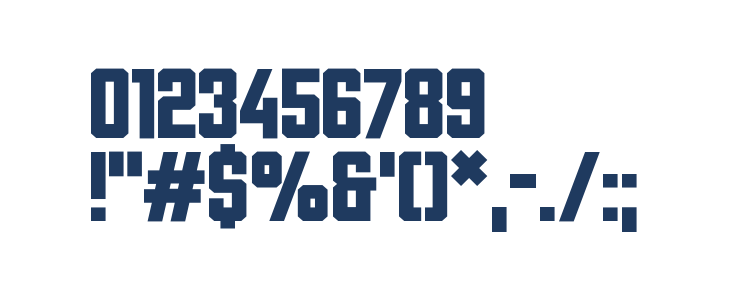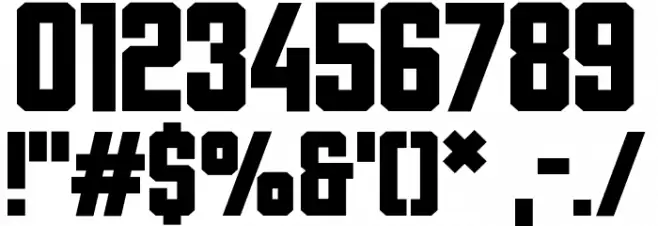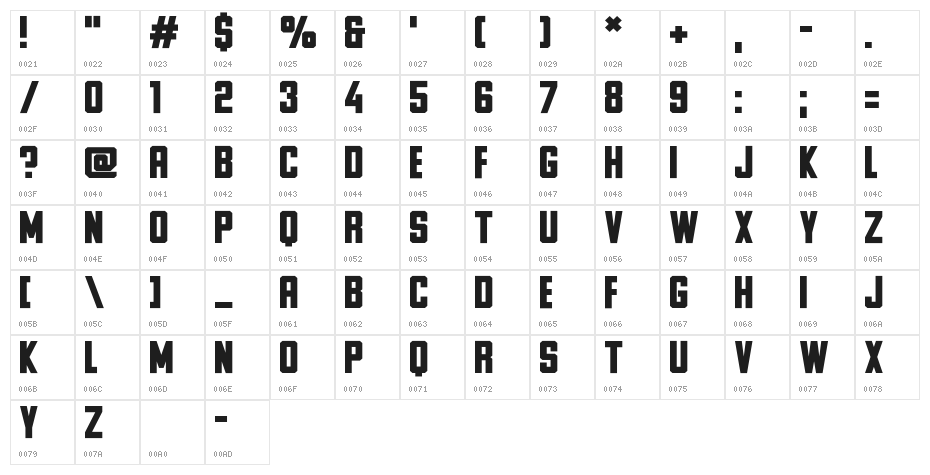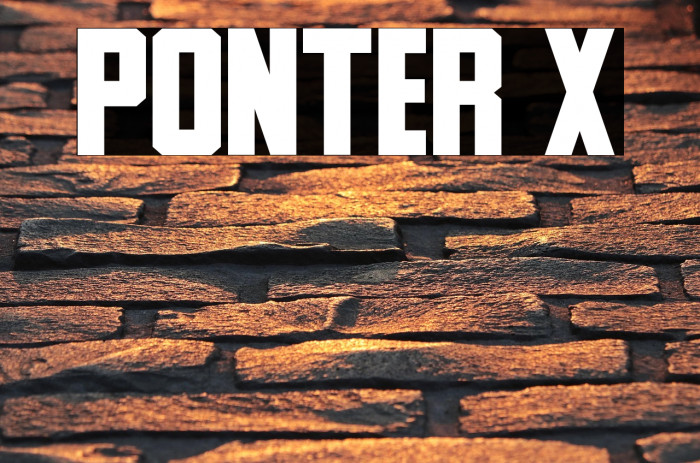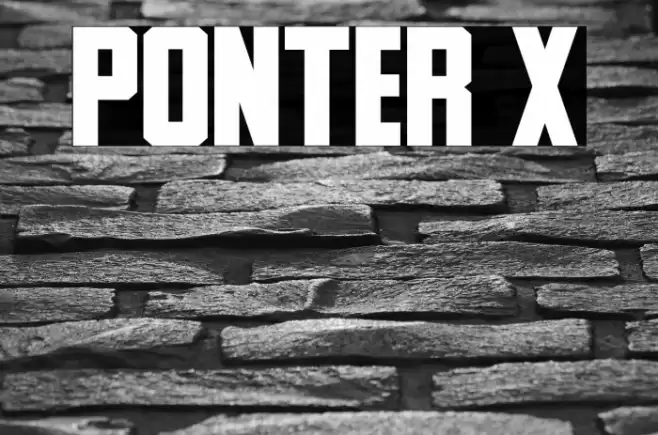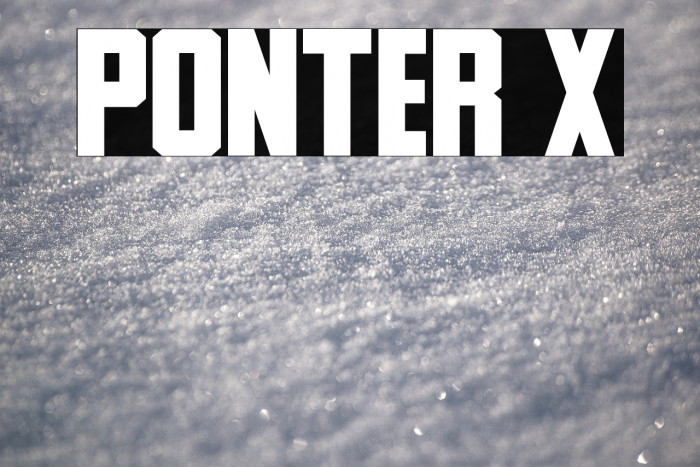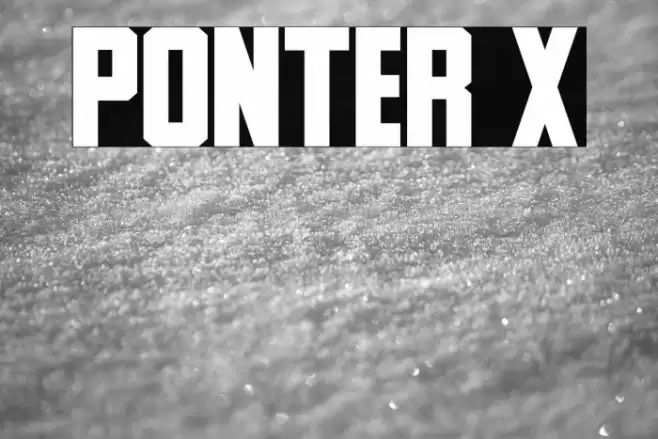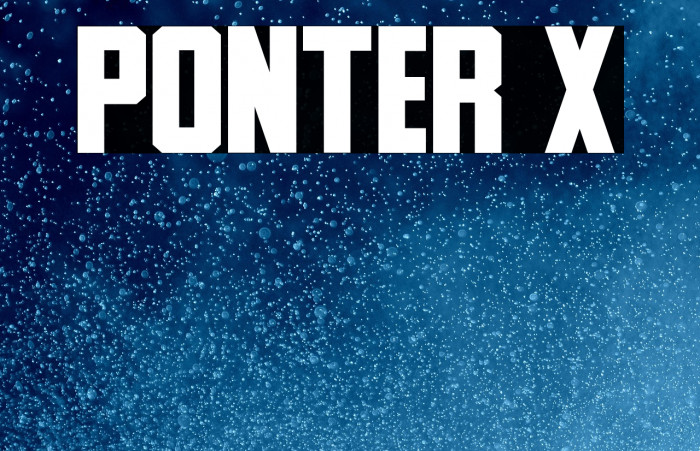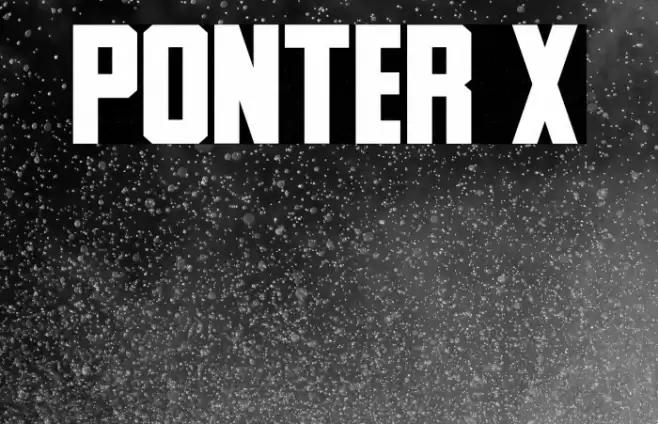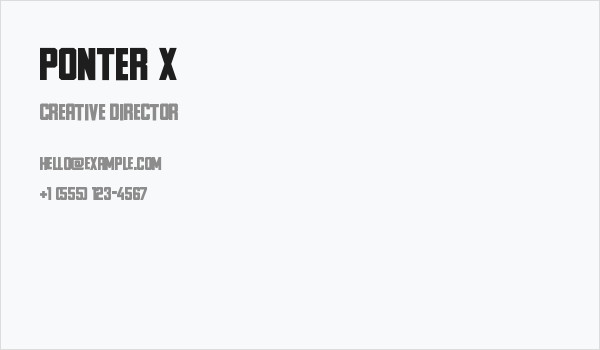
Ponter X Font
Ponter X Description
This font features a bold and robust design with thick, blocky characters that convey a sense of strength and impact. The uppercase letters are uniform in height, with sharp angles and straight lines that create a geometric appearance. The numbers and special characters maintain this bold style, ensuring consistency across all glyphs. The font's design is reminiscent of sports or military themes, making it ideal for projects that require a strong visual presence. Its boldness and clarity make it suitable for headlines and titles where attention is paramount.
| Proposed Projects | Perfect for sports branding, military-themed designs, posters, and impactful headlines. |